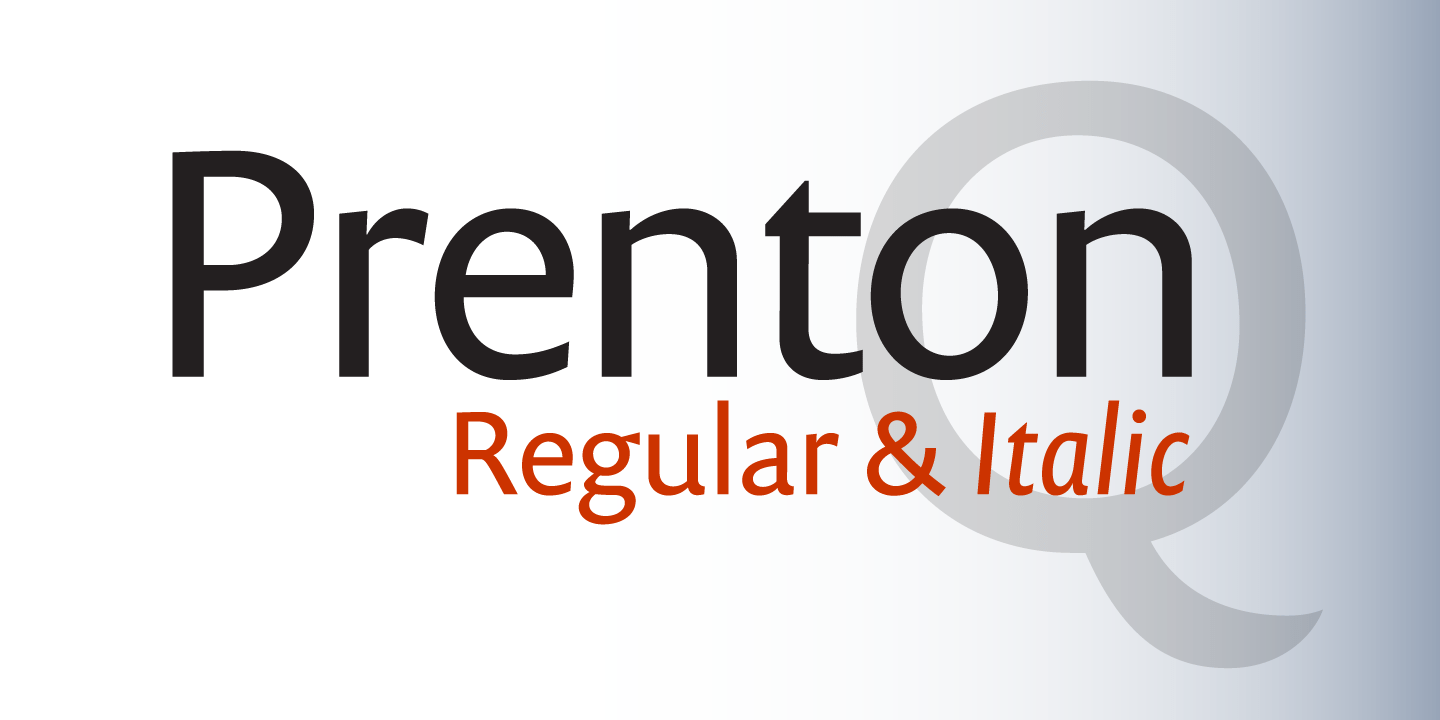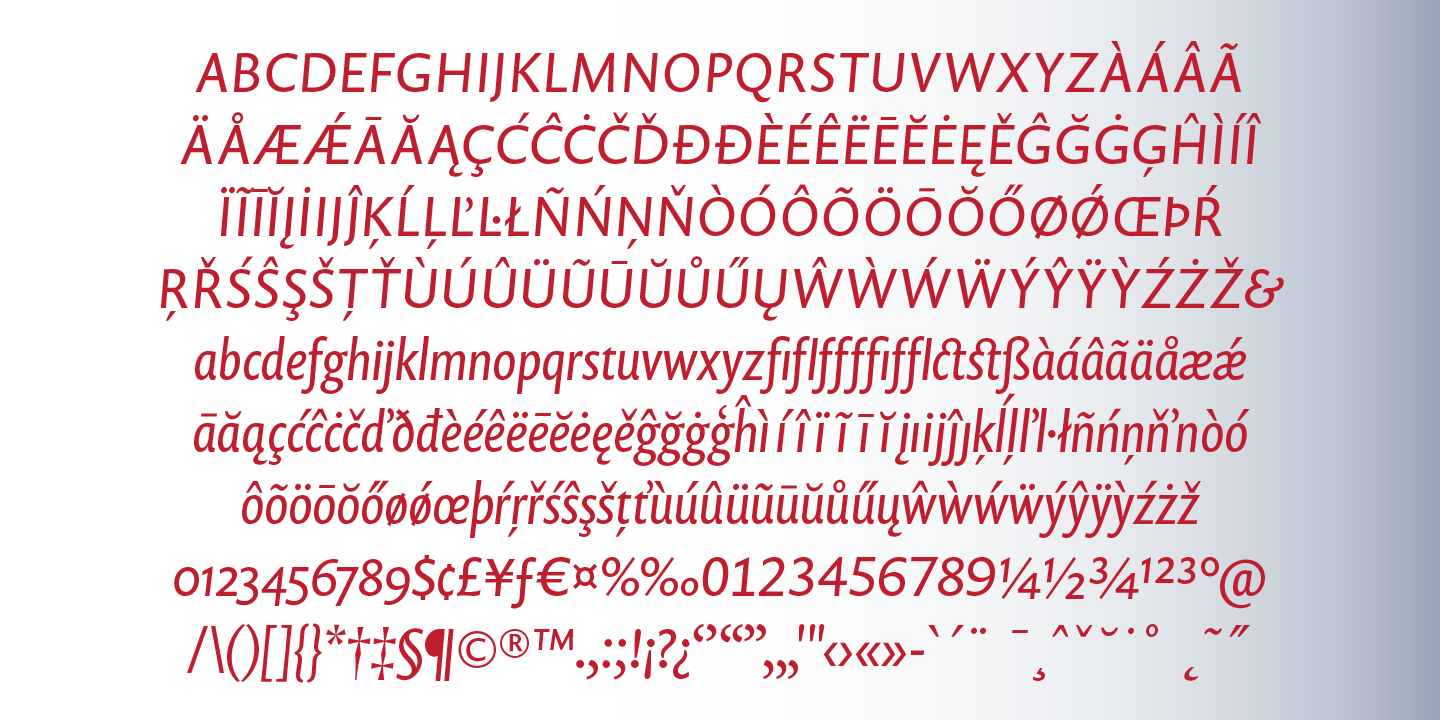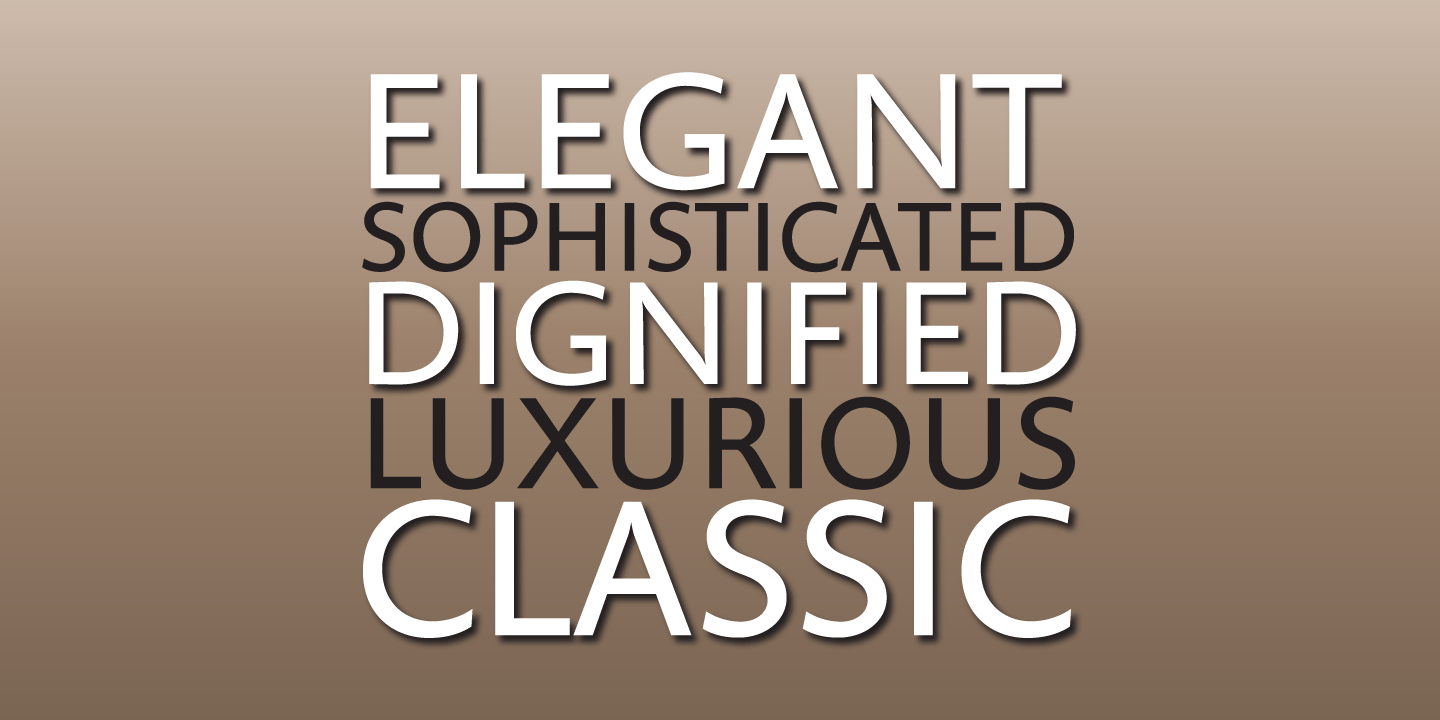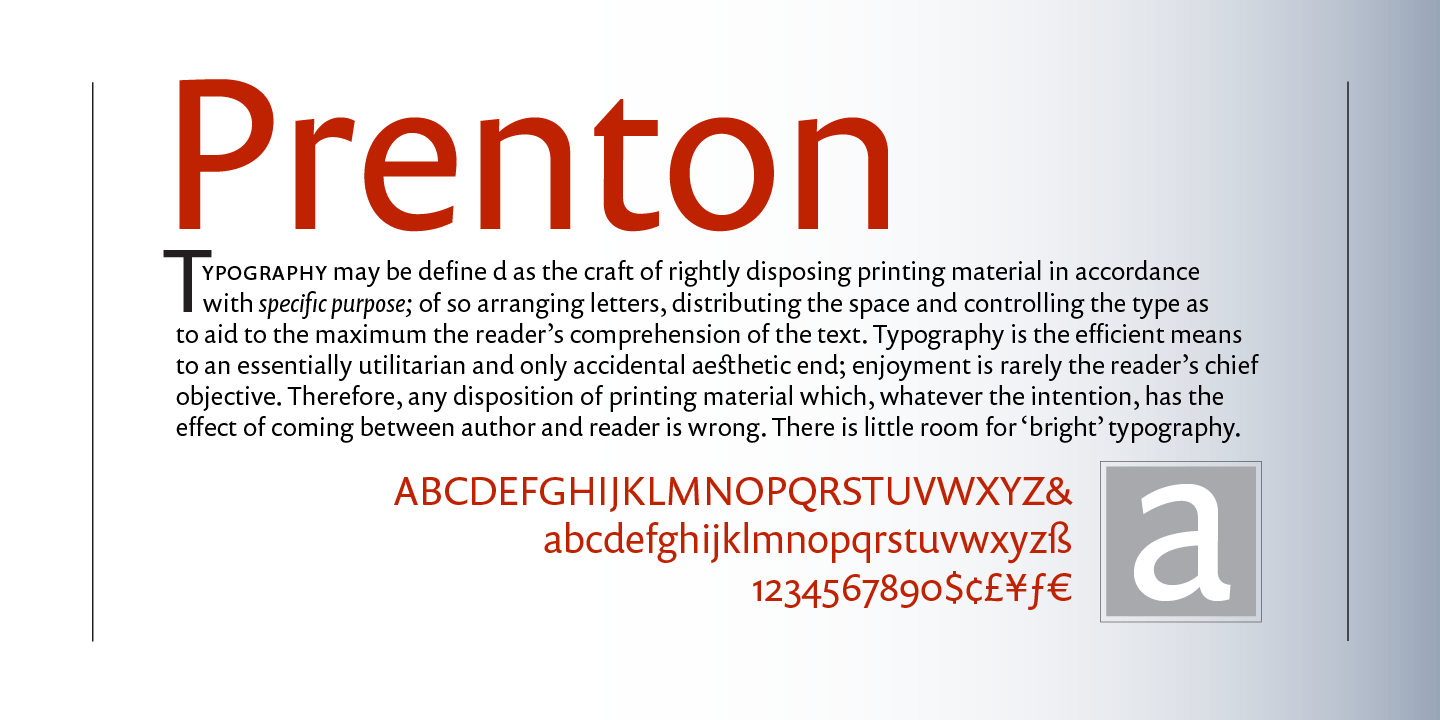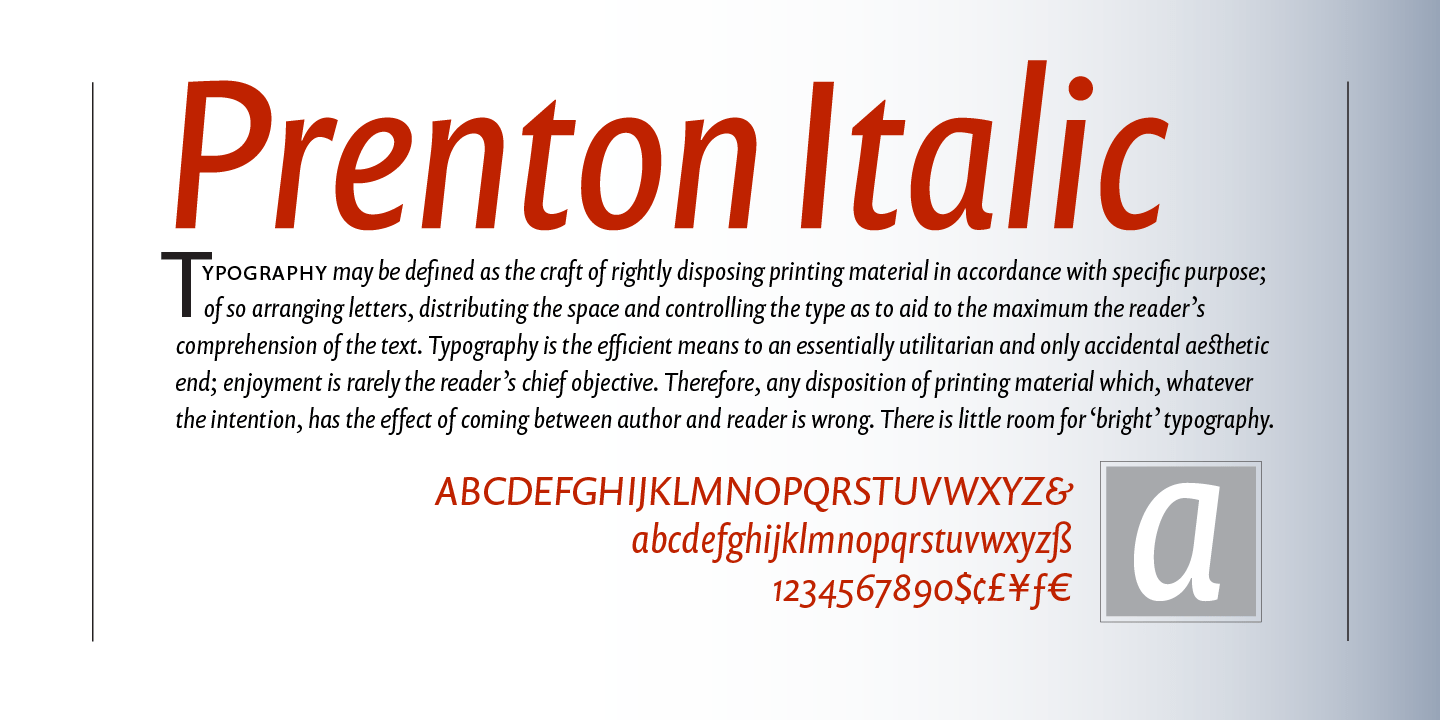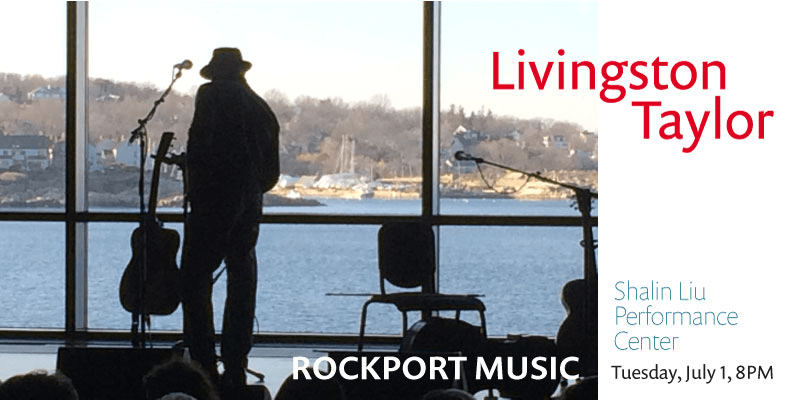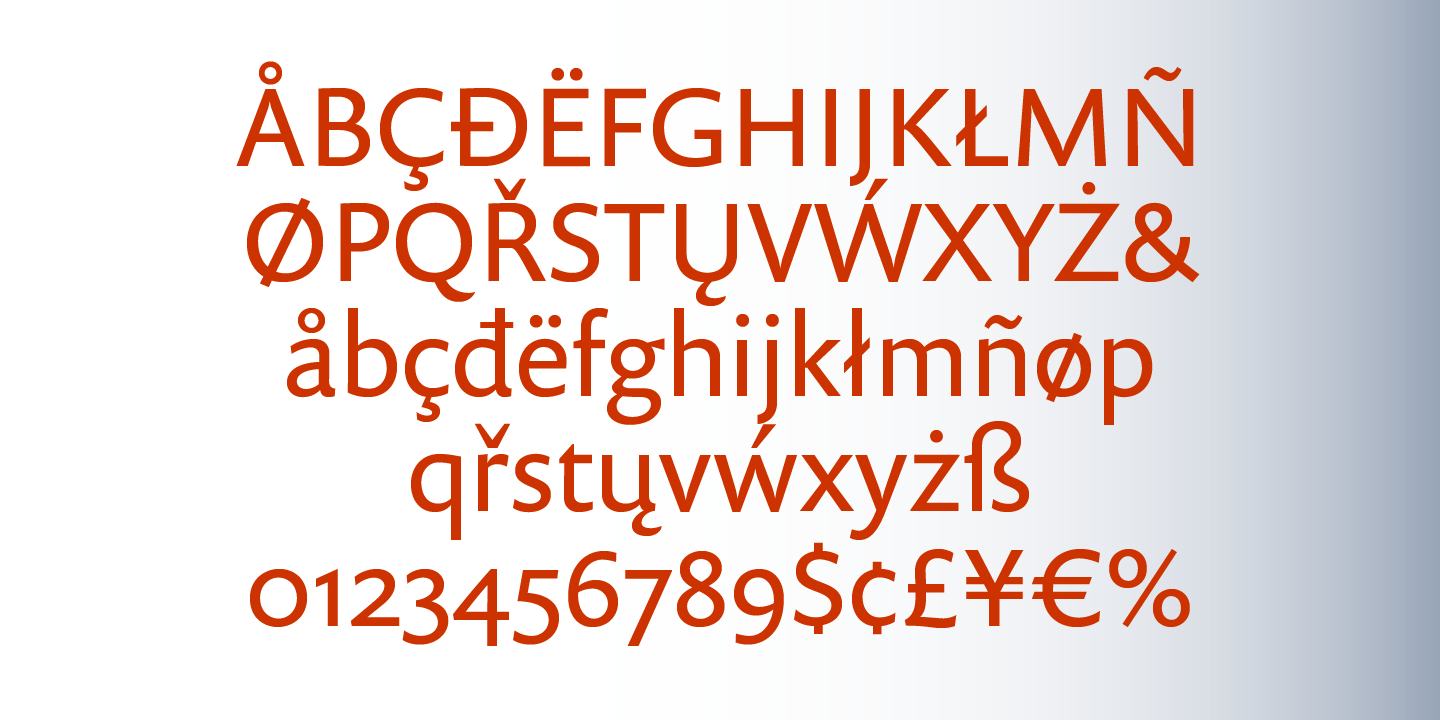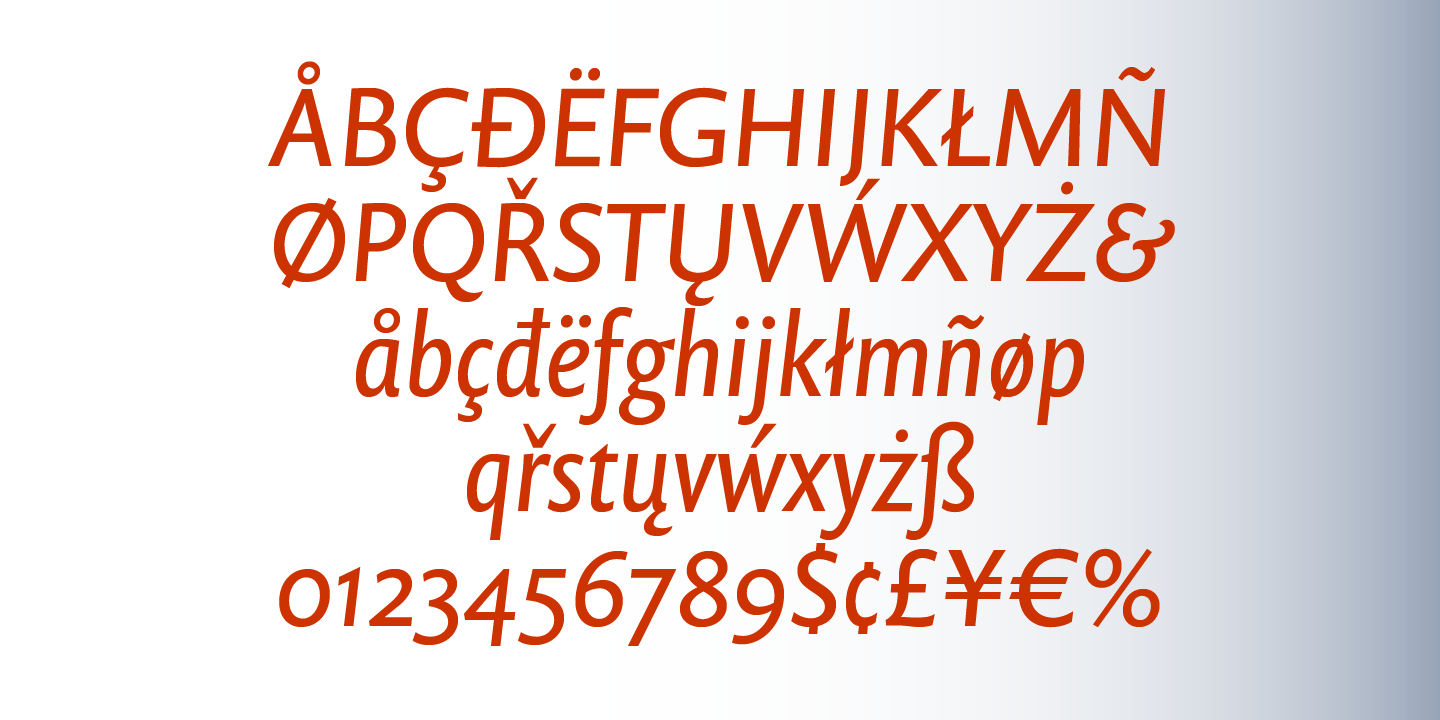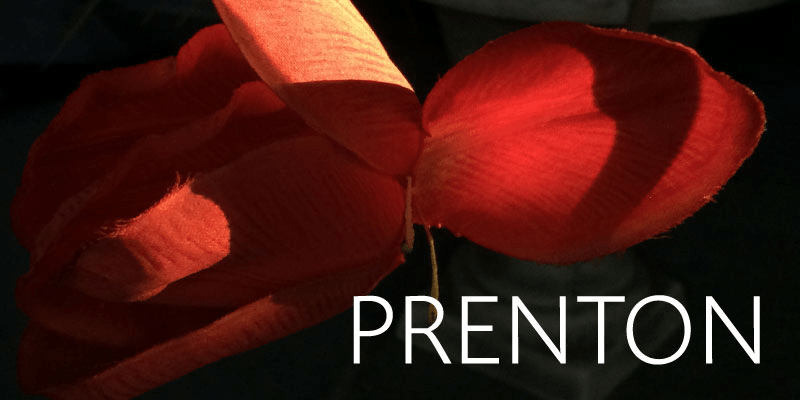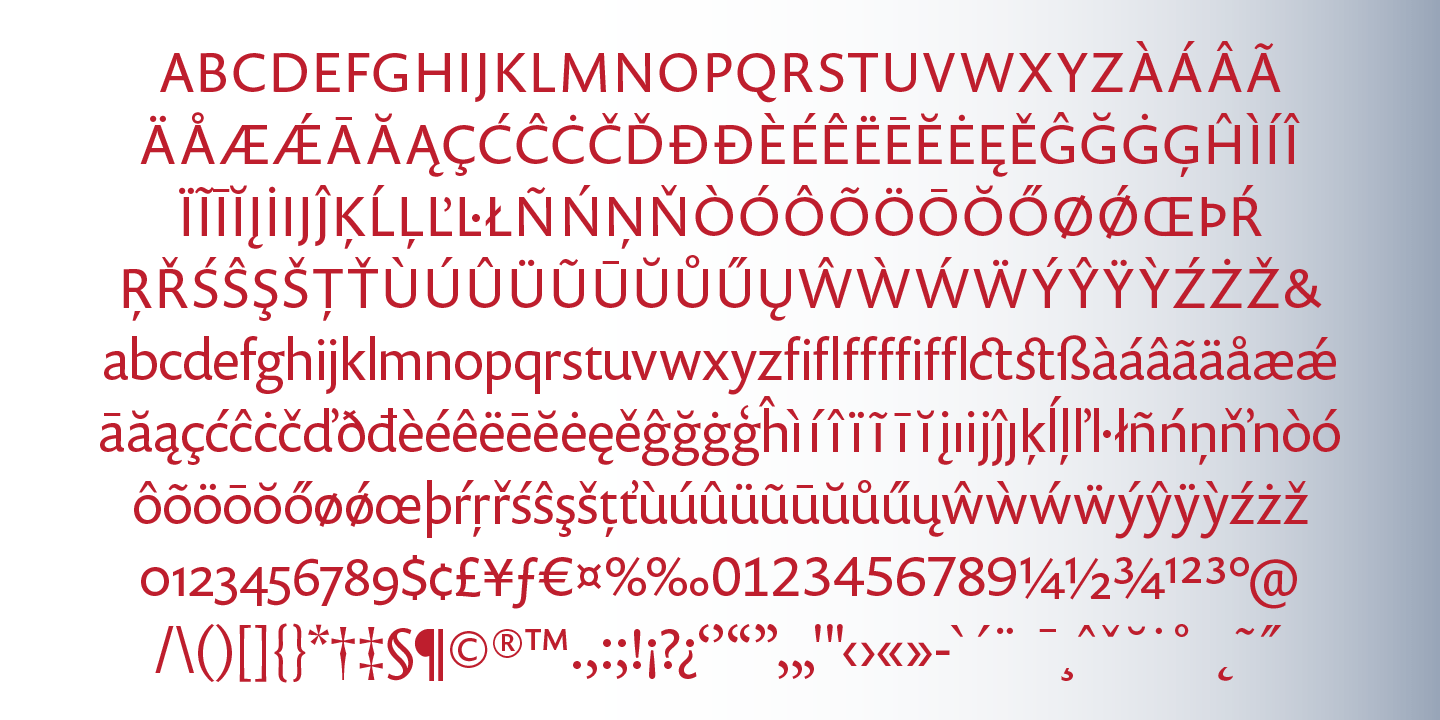
Prenton Regular & Italic
Prenton Regular & Italic is a package of two elegant and meticulously drawn typefaces by Roy Preston. Prenton is a clean, straightforward sans serif. The fonts are highly legible and perfect for both screen and print use. The italic is hand drawn. Each font has proportional, tabular and old style figure sets, an array of f-ligatures, a ct and st ligature, and each supports an extended European character set.